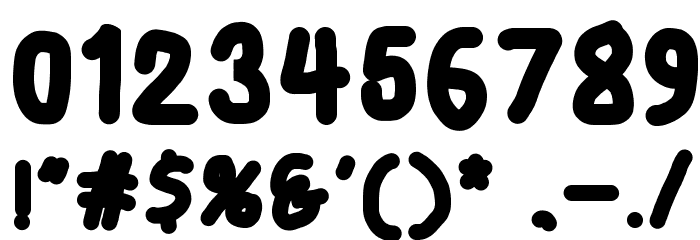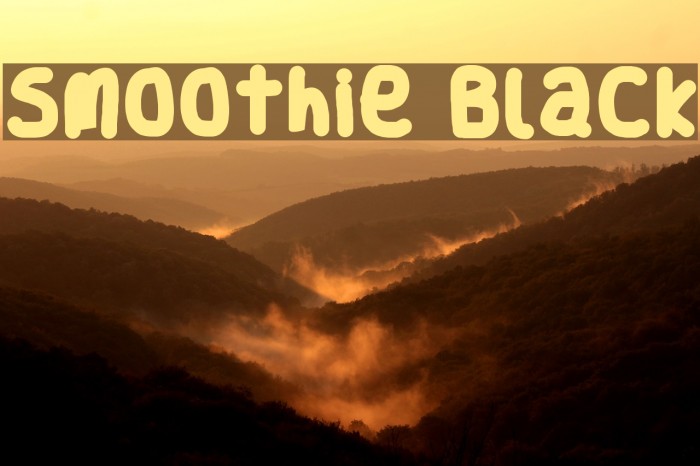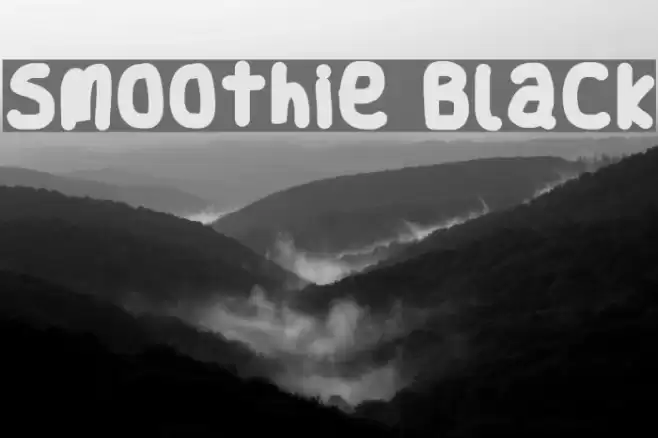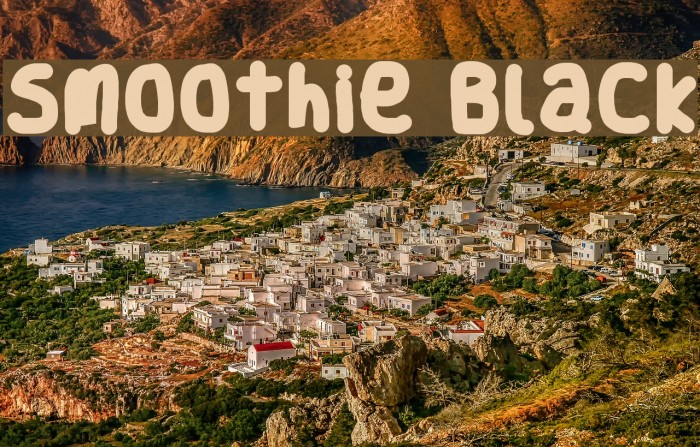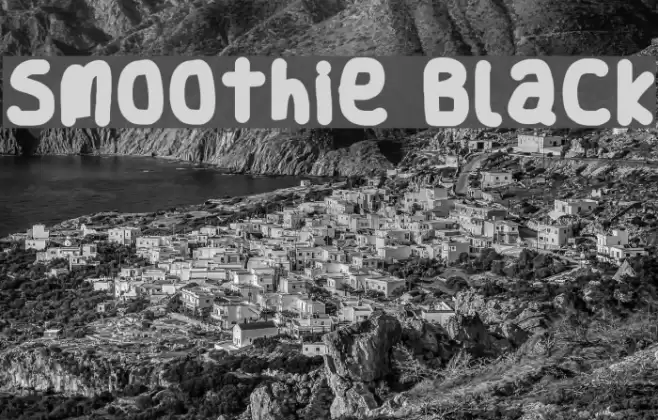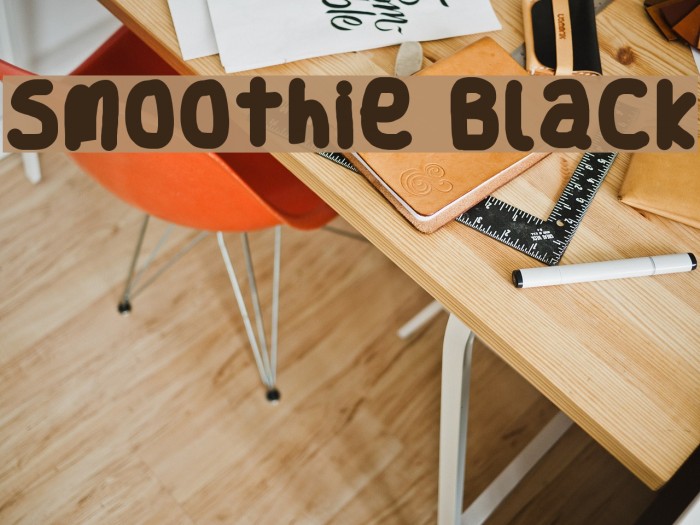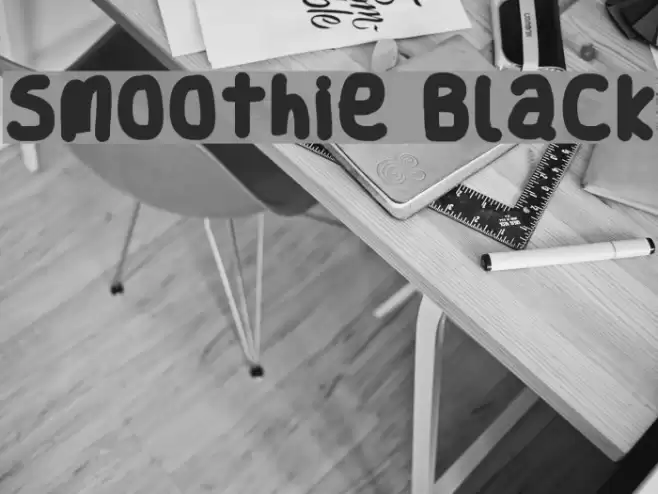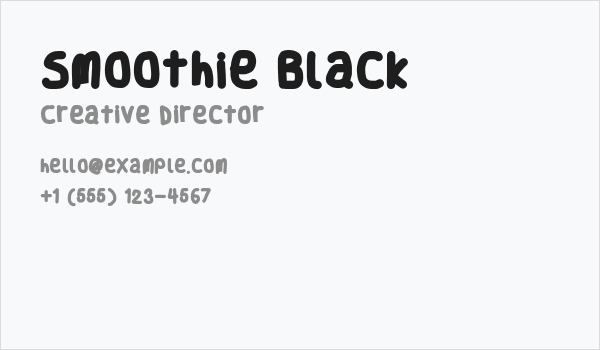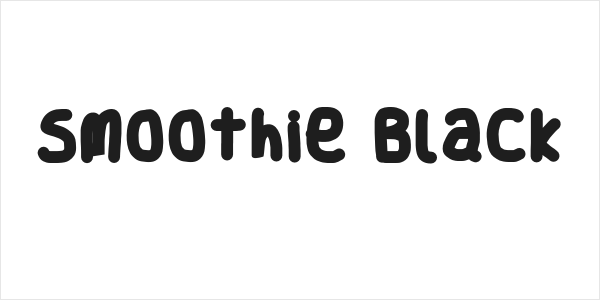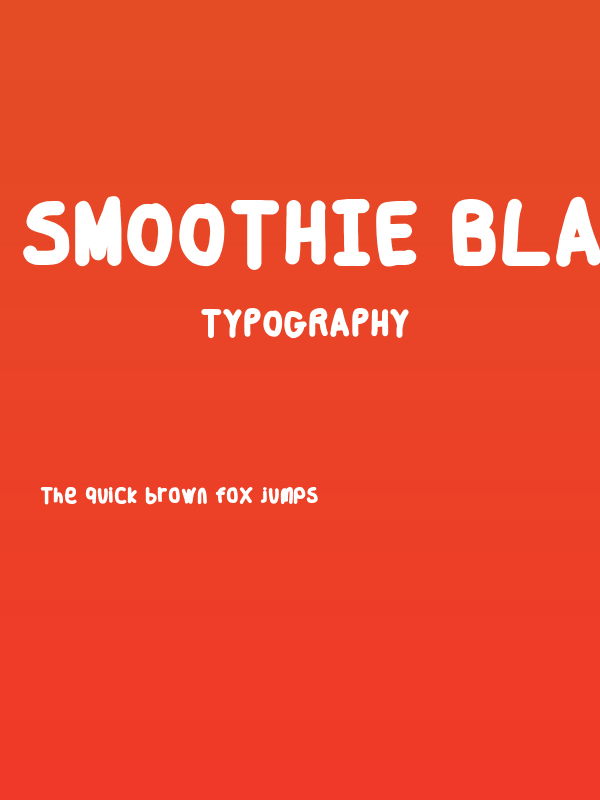
Smoothie Black Font
Smoothie Black Description
This playful and bold font features rounded, smooth edges and a thick, uniform stroke that gives it a friendly and approachable appearance. The characters are slightly condensed, enhancing readability while maintaining a unique style. The font's whimsical nature is evident in its bubbly letterforms, making it ideal for projects that require a fun and informal touch. Its consistent weight across all characters ensures a cohesive look, while the rounded terminals add to its charm. The font includes a full set of uppercase and lowercase letters, numbers, and a variety of special characters, making it versatile for different design needs.
| Proposed Projects | Perfect for children's books, playful branding, party invitations, and casual social media graphics. |